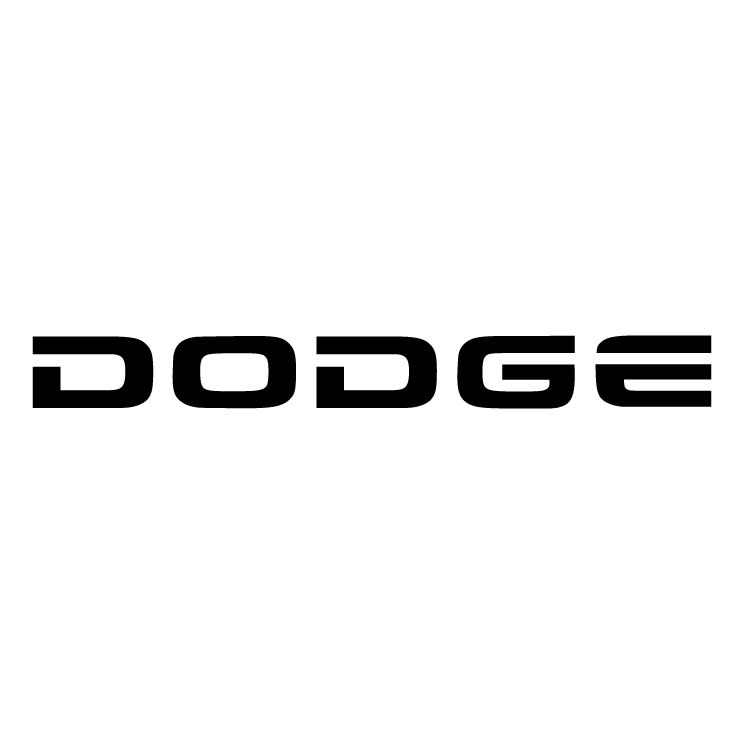
What Font Is The Dodge Logo
What Font Is The Dodge Logo. Looking for dodge automotive fonts? It seems that chrysler logo uses a sans serif font and the font is yet to be identified.
Dodge By Saji Johnny Kundukulam.
The Dodge Emblem Looks Simple Yet Brutal And Strong.
The chrysler pentastar was added onto the logo, but was coloured red and used alongside the 1964 logo. In basic > sans serif 165,667 downloads (11 yesterday) 2 comments shareware. The font of the dodge logo is very important for the company’s image.